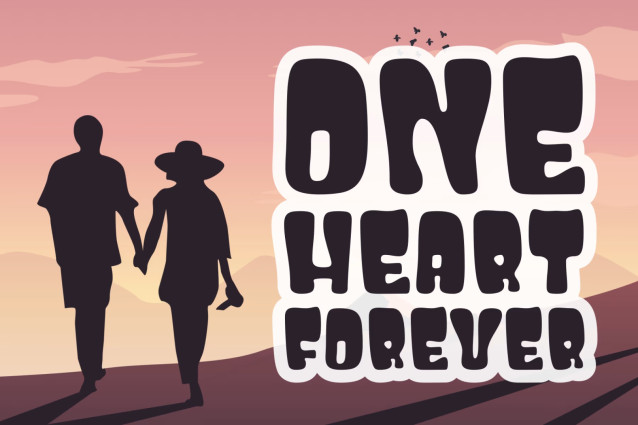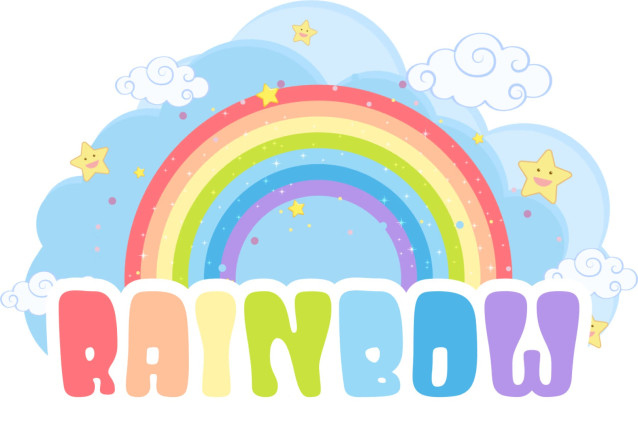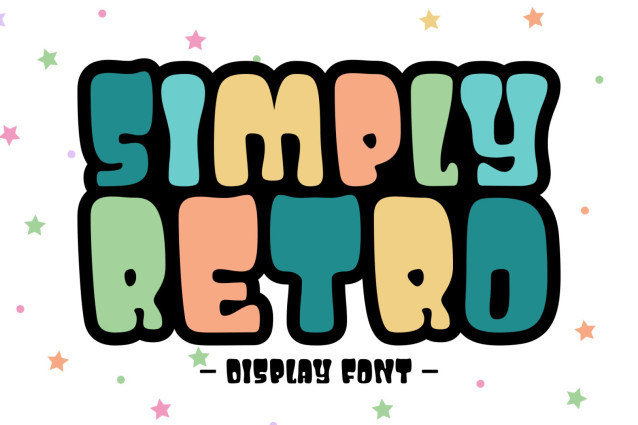
Simply Retro Font
Simply Retro Font is a cool and funky display font. Groovy and playful, this font will instantly enhance any design project you will create while adding some fun and pizzazz.